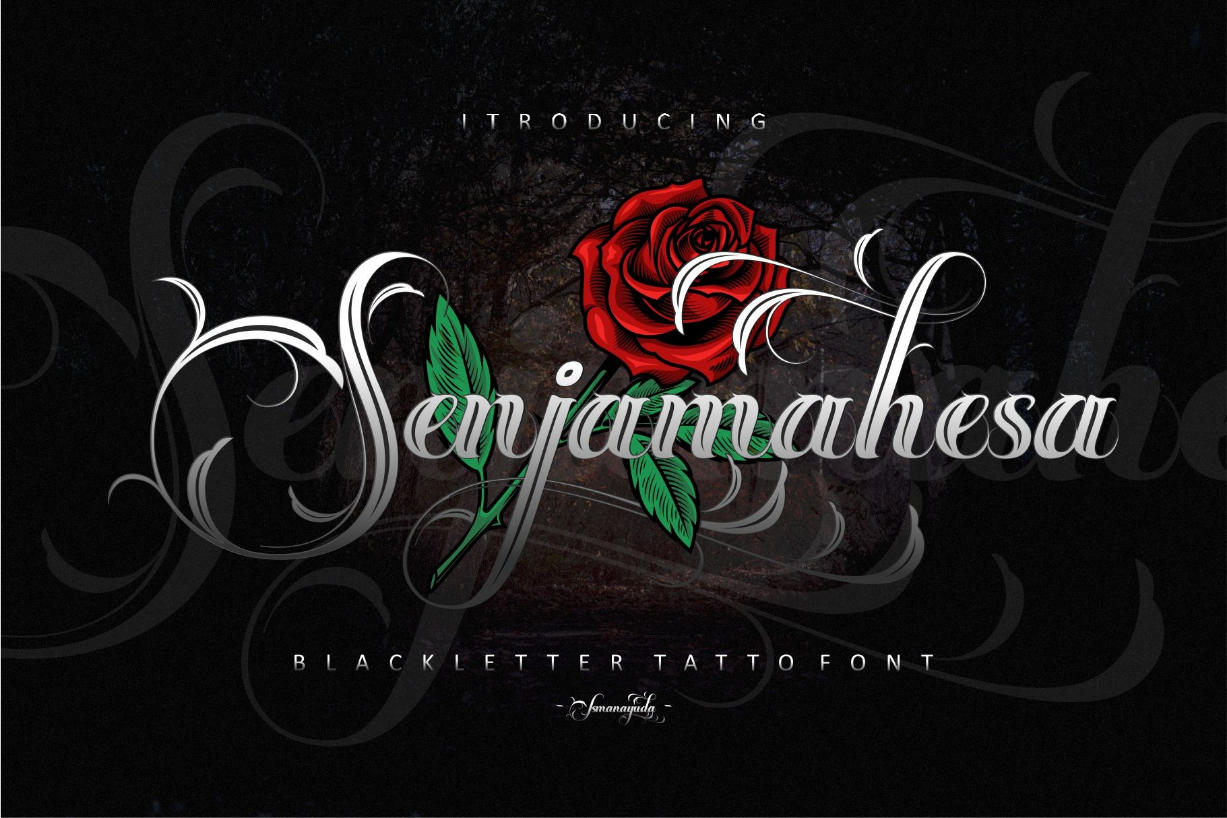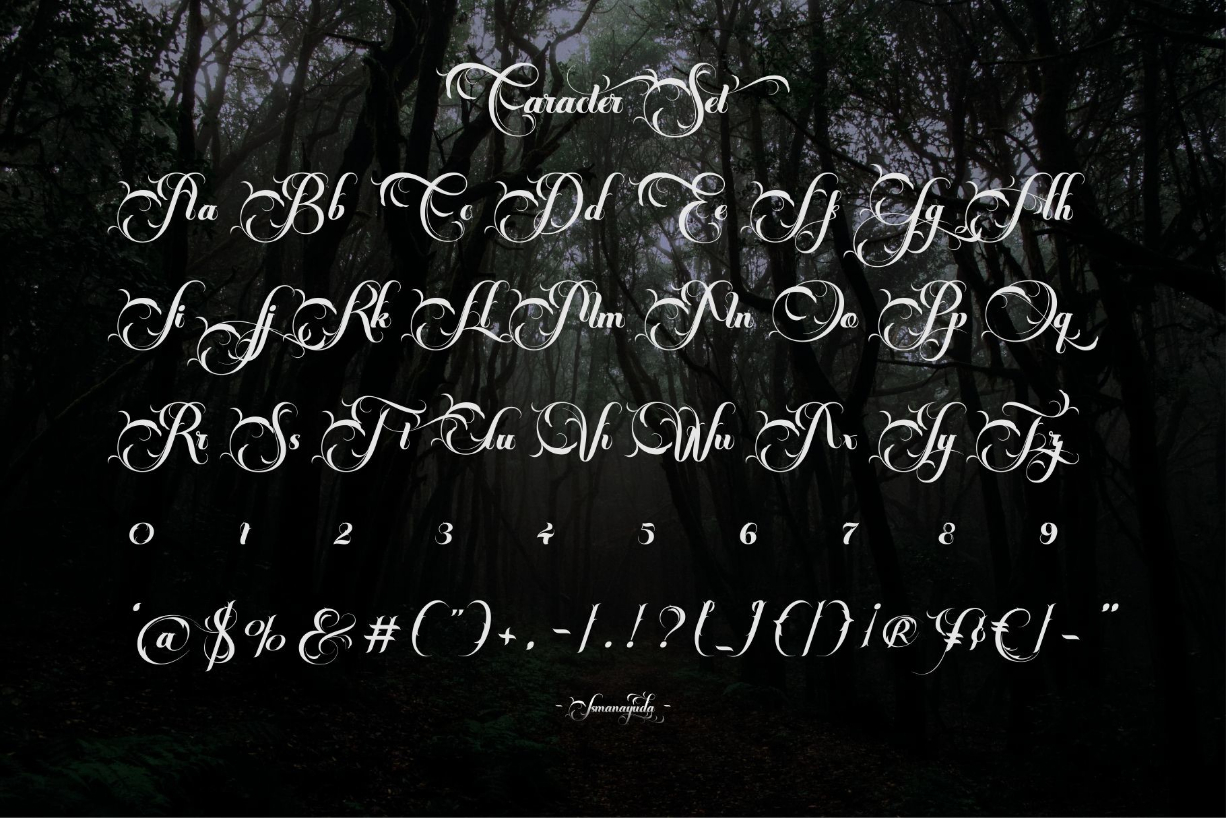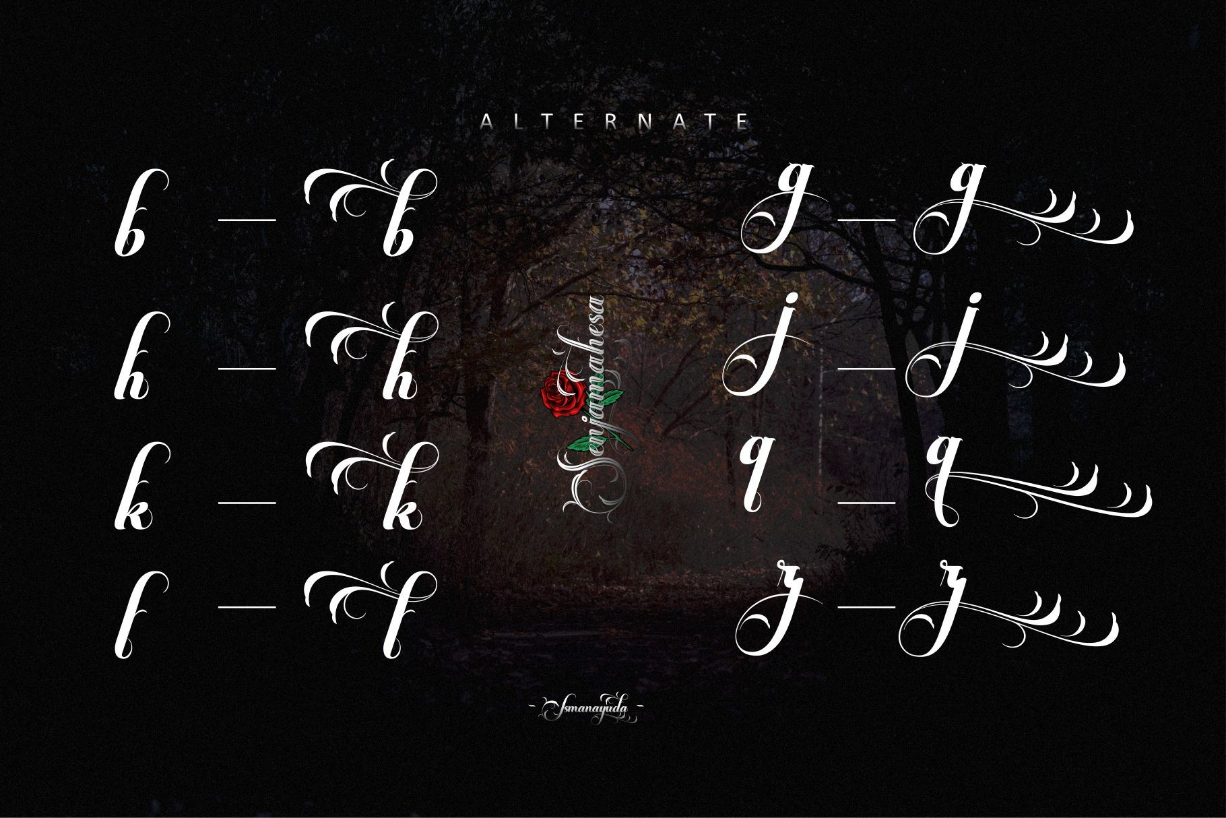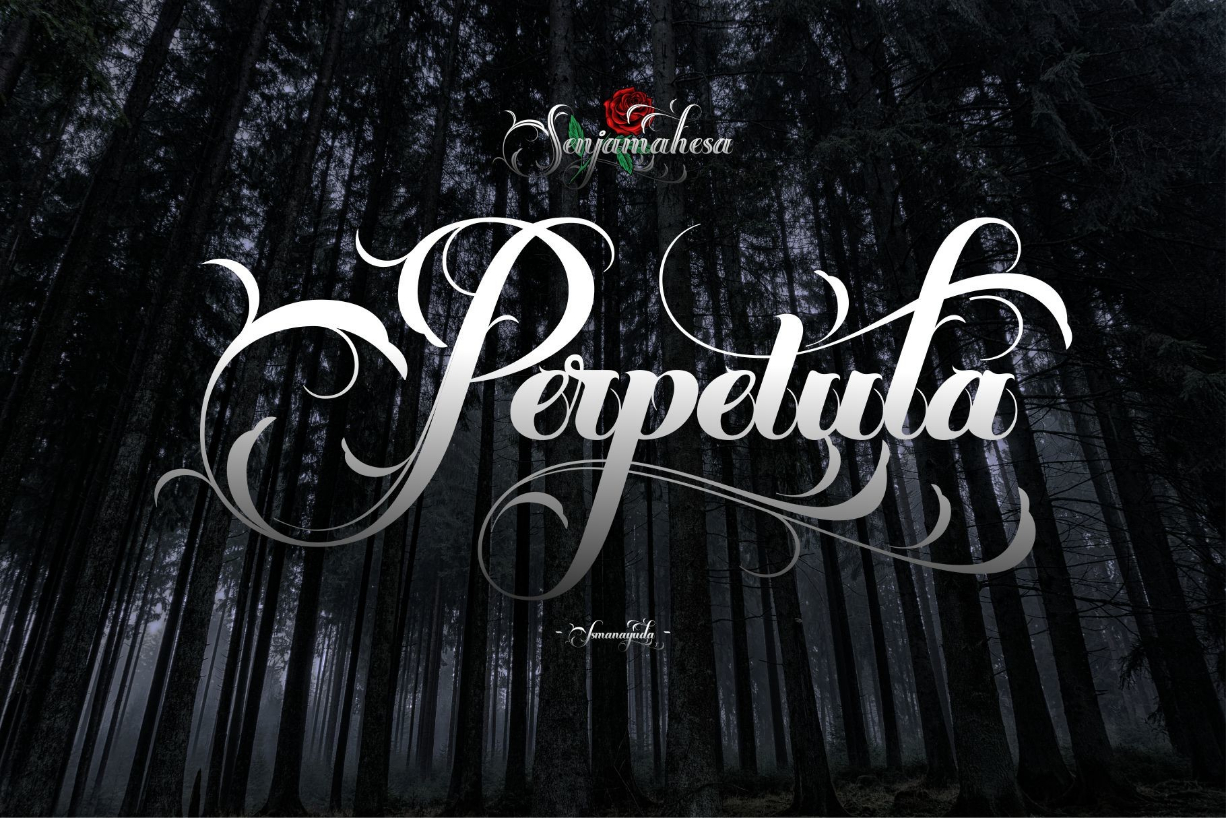
Senjamahesa Font
About Senjamahesa Font
Senjamahesa carries some strange shapes inspired by plants, mainly flowers.
You can find several advantages to it, such as being able to use it for tattoos, calligraphy, band logos, clothing logos, shop logos, or industrial needs.